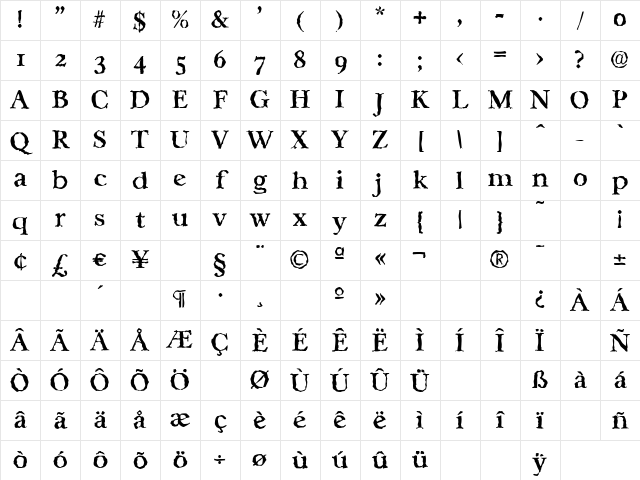
CasablancaRandom-Medium Regular
Design Context for CasablancaRandom-Medium
CasablancaRandom-Medium is a composed and adaptable typeface that performs quietly and consistently across a wide range of design contexts.